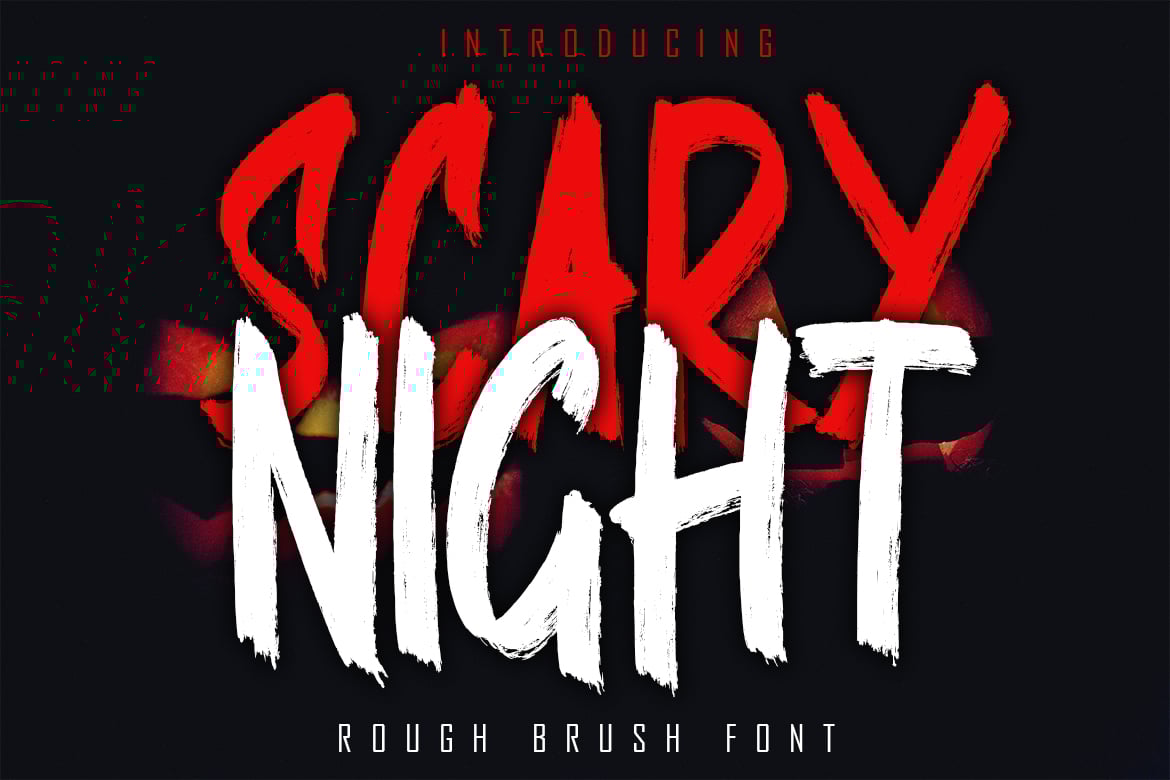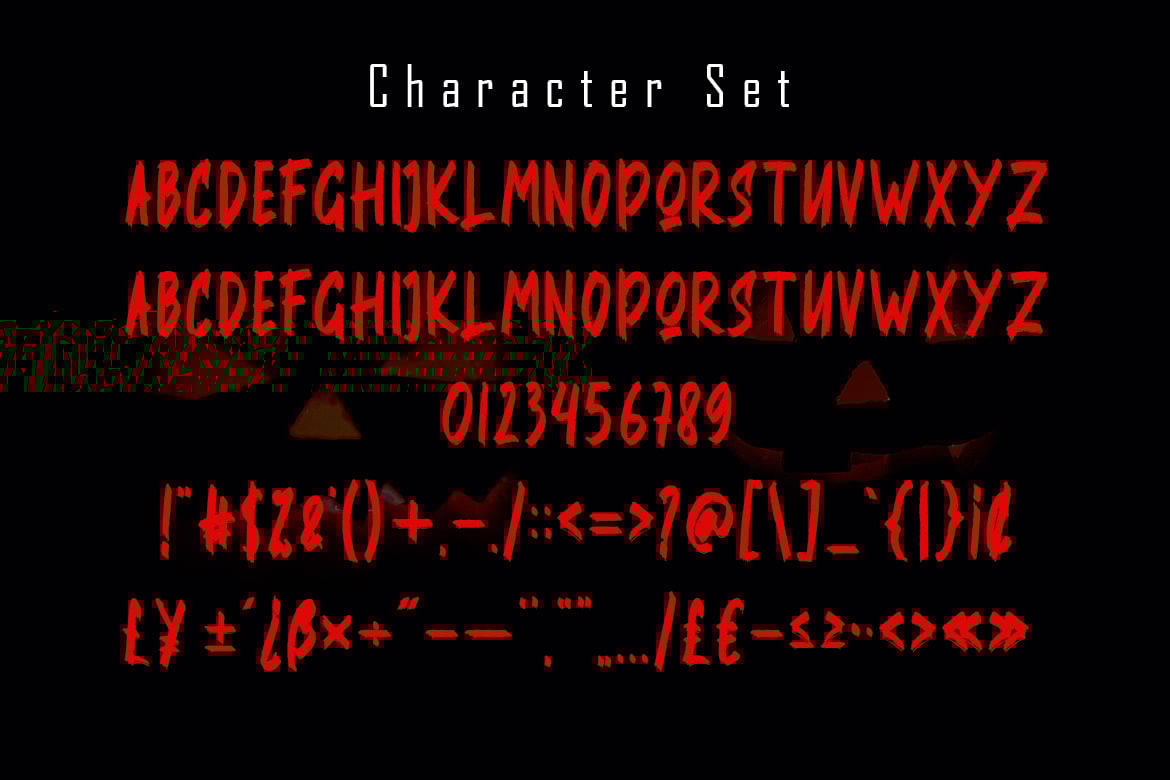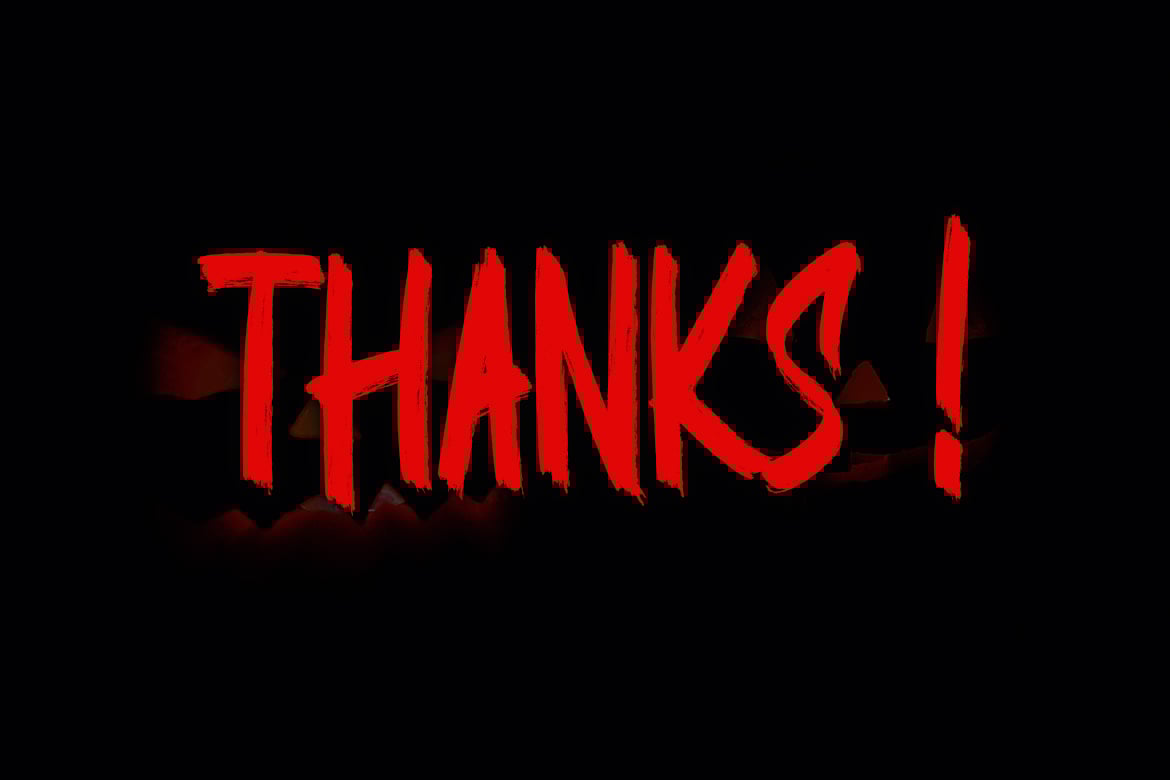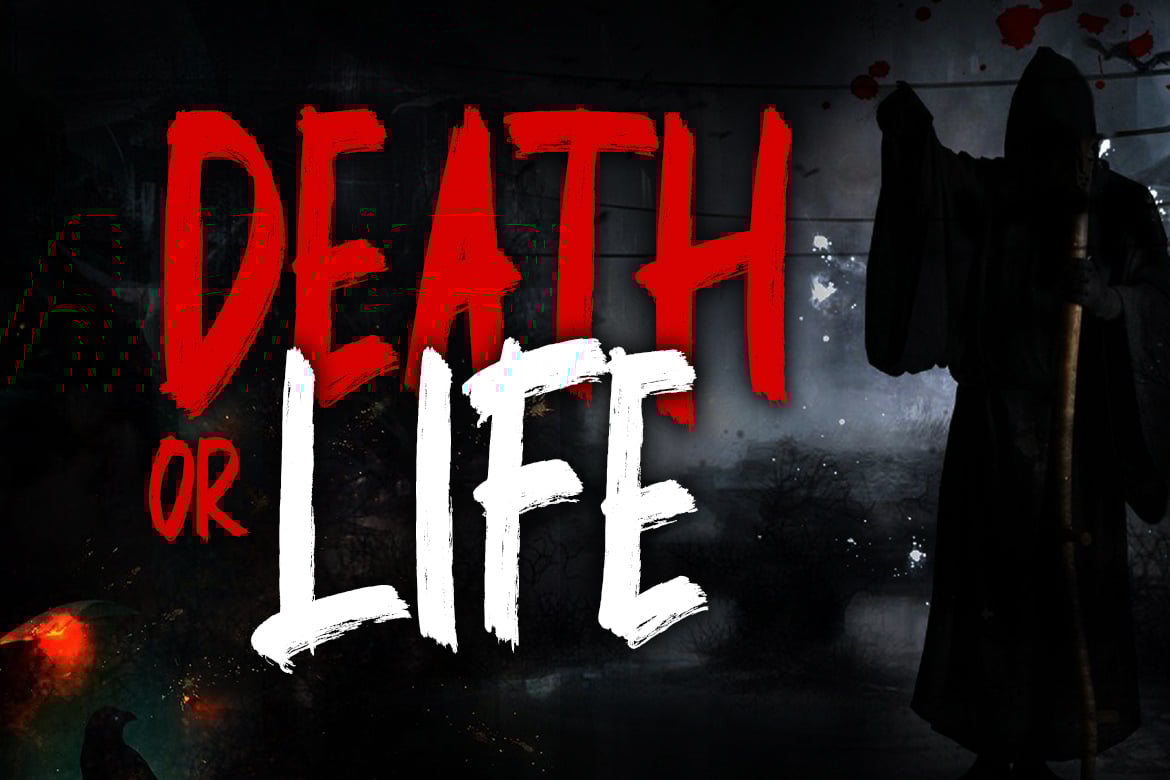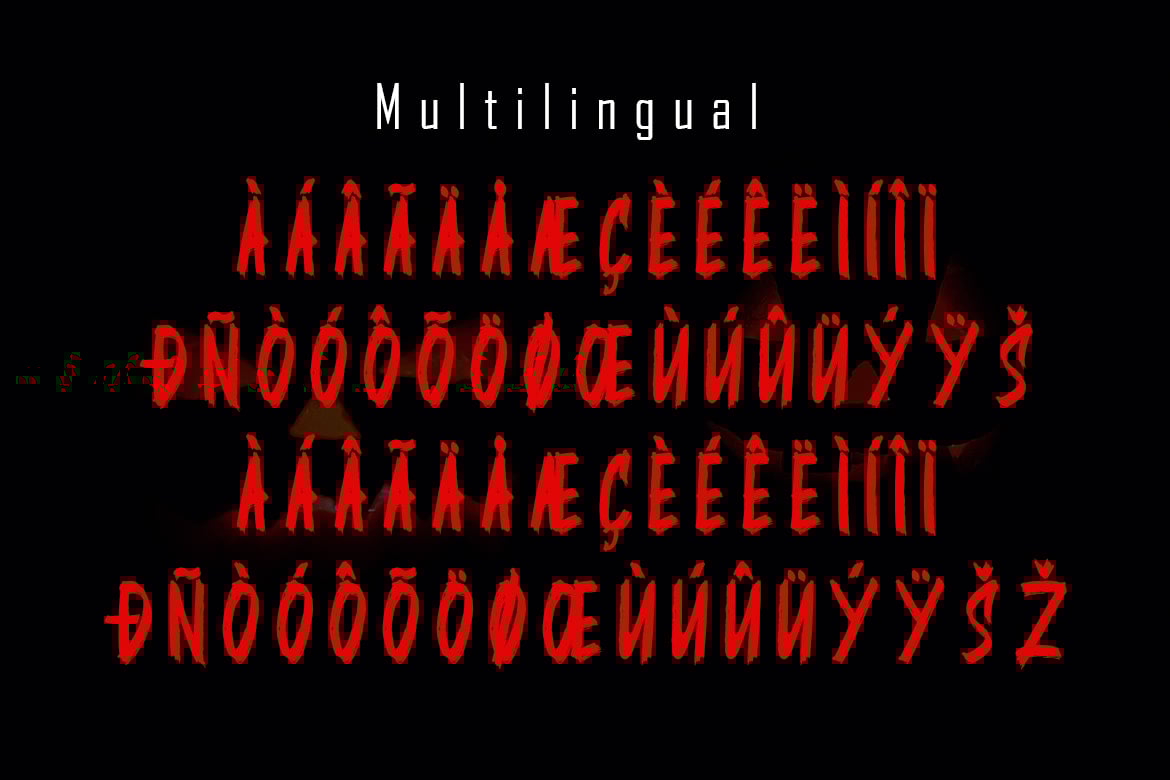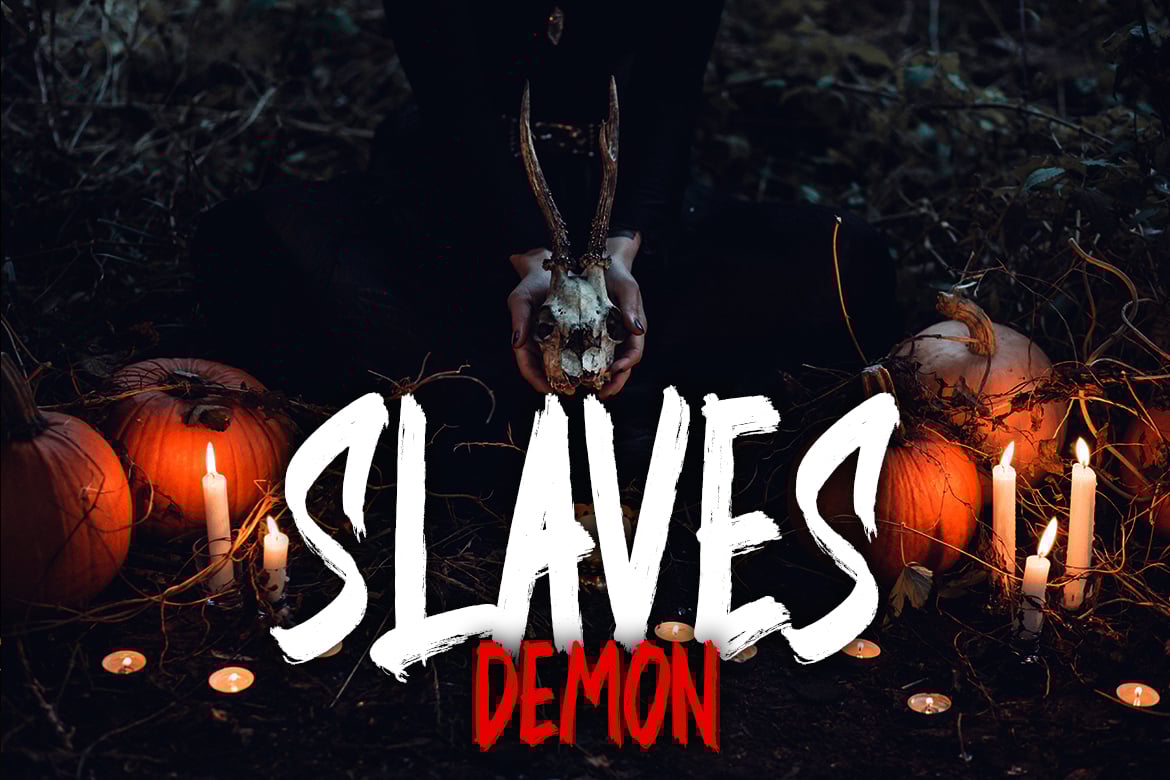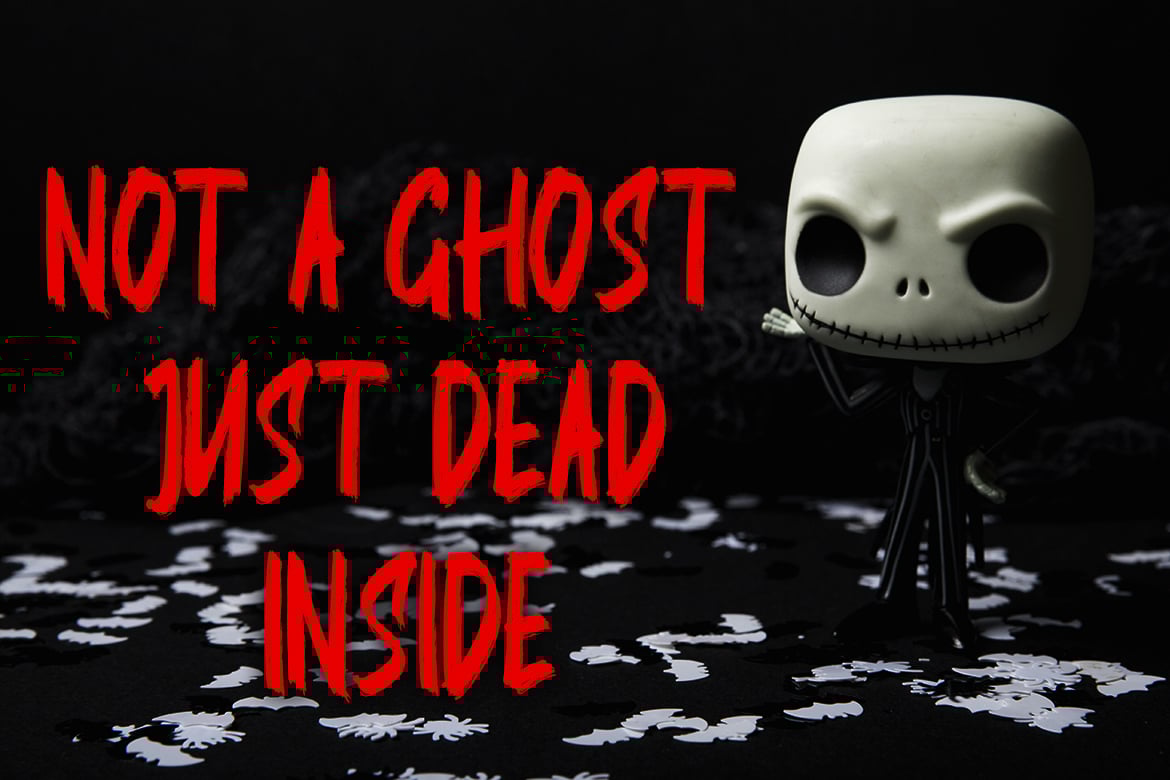
SCARY NIGHT – Rough Brush Font
SCARY NIGHT is a brush font that has a rough brush-like texture accompanied the original and this font supports encoded PUA and basic Multilinggual
- Basic Latin Language Support (AÀÁÂÃÄÅCÇDÐEÈÉÊËIÌÍÎÏÑOØÒÓÔÕÖUÙÜÚÛWYÝŸÆß )